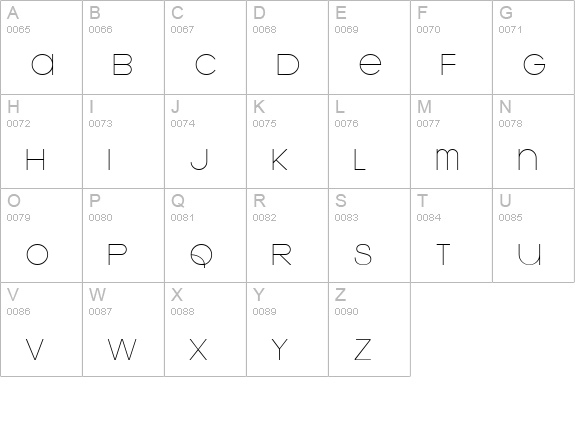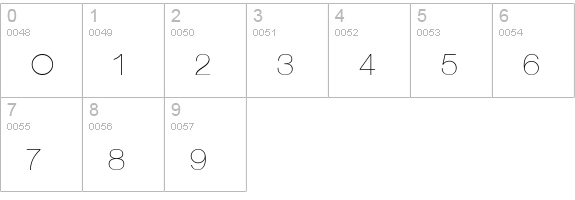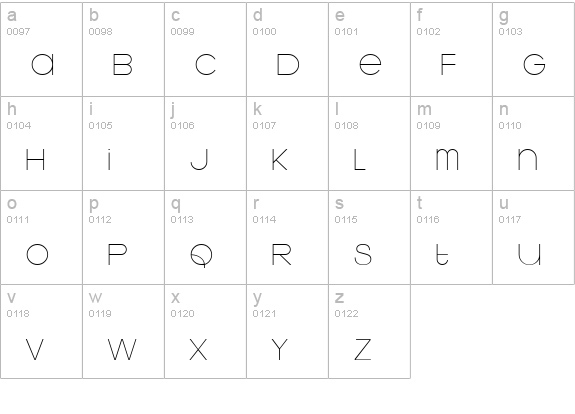
Kravitz Font Details
Kravitz font is a stunning display typeface that exudes elegance and sophistication. Its intricate and stylish letterforms make it the perfect choice for any design project that demands attention. With its sleek curves and sharp edges, Kravitz font adds a touch of modernity and professionalism to any creative endeavor. But what sets Kravitz font apart is not only its visual appeal but also its availability. This font is not only beautiful, but it is also free! That's right, you can download and use Kravitz font without spending a dime. Thanks to FontsMarket.com, this exceptional typeface is freely available for everyone to enjoy. Whether you're designing a logo, a website, or creating a striking poster, Kravitz font will elevate your work to a whole new level. Its versatility allows it to be used in a variety of contexts, from fashion and beauty industries to technology and corporate branding. The attention to detail in Kravitz font is truly remarkable. Each letter has been meticulously crafted, ensuring a harmonious flow and balance throughout the entire typeface. The generous spacing between characters ensures legibility, even at smaller sizes. The designers of Kravitz font have taken great care to create a font that not only looks amazing but also functions flawlessly. It is compatible with various software and supports multiple languages, making it a go-to choice for designers from all around the world. So why wait? Elevate your designs with the captivating beauty of Kravitz font. Download it for free at FontsMarket.com and let your creativity soar.